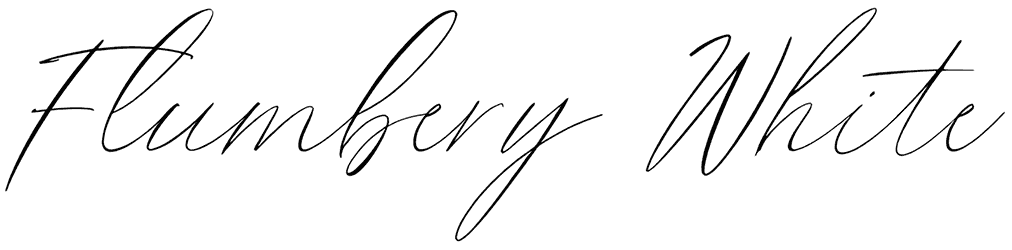
Flumbery White Font
Because of its sleek and natural appearance, the handwritten font, Flumbery White, which has a fragile appearance, is seductive. This handwritten font has the ability to be used in a wide variety of contexts, ranging from lettering and greeting cards to branding and poster design.